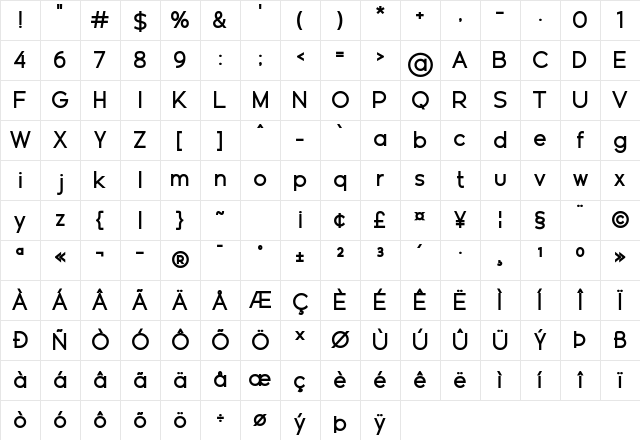
Geomatrix Medium Free Font
Geomatrix Medium
Foundry: Shanaya Creative Studio
Designer: Wahyu Sa
Design Context for Geomatrix
Geomatrix is a composed and adaptable typeface that performs quietly and consistently across a wide range of design contexts.
Pro Tip: Use Geomatrix in both headline and body roles to test its range before committing to a single application.